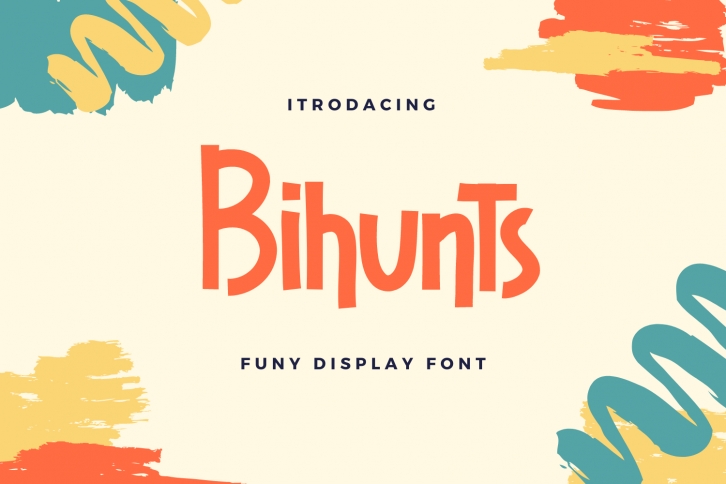
Bihunts is a fun, friendly and cool display font. It embodies playfulness and authenticity and is the perfect choice for any children activity or school project.